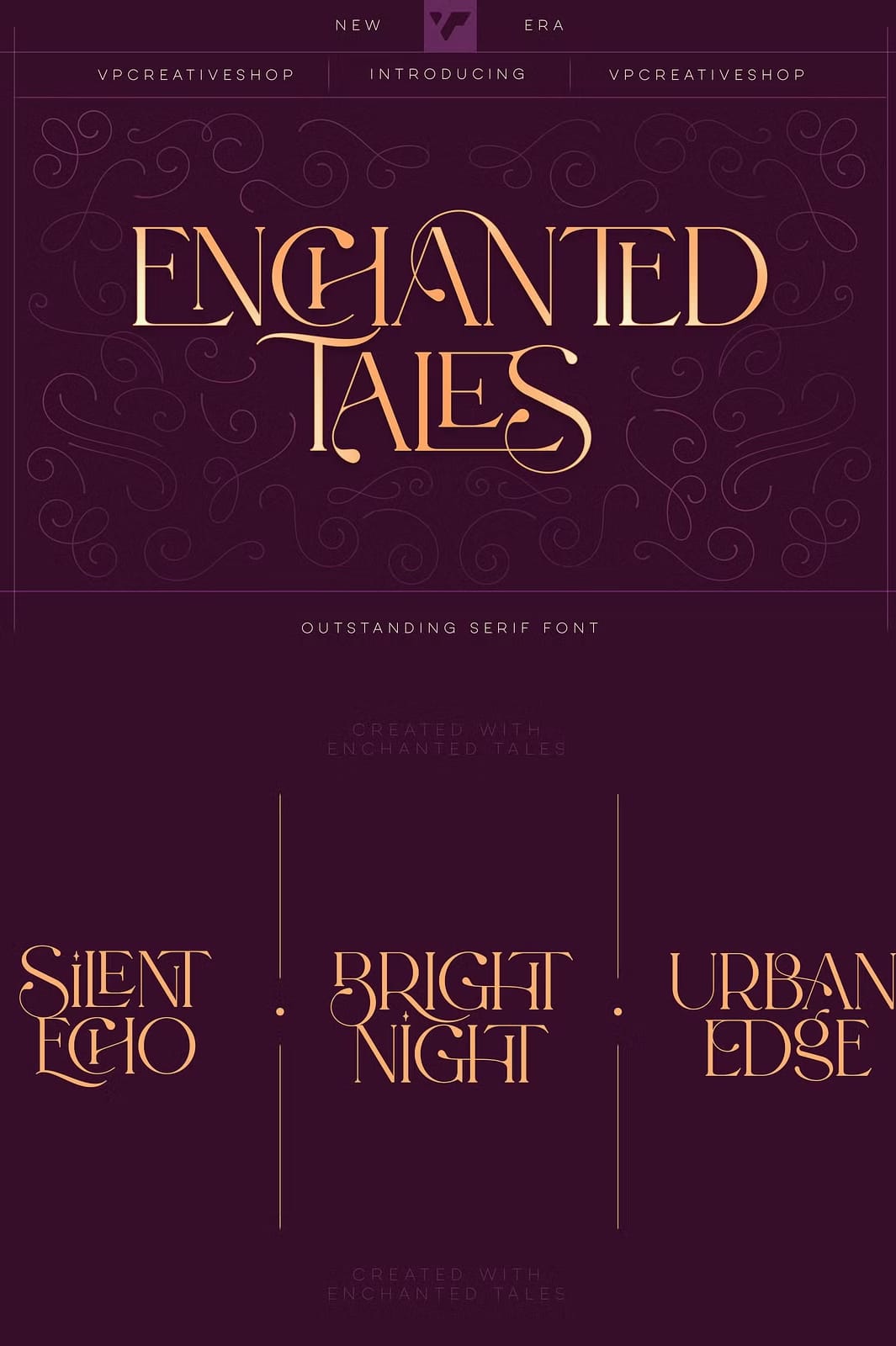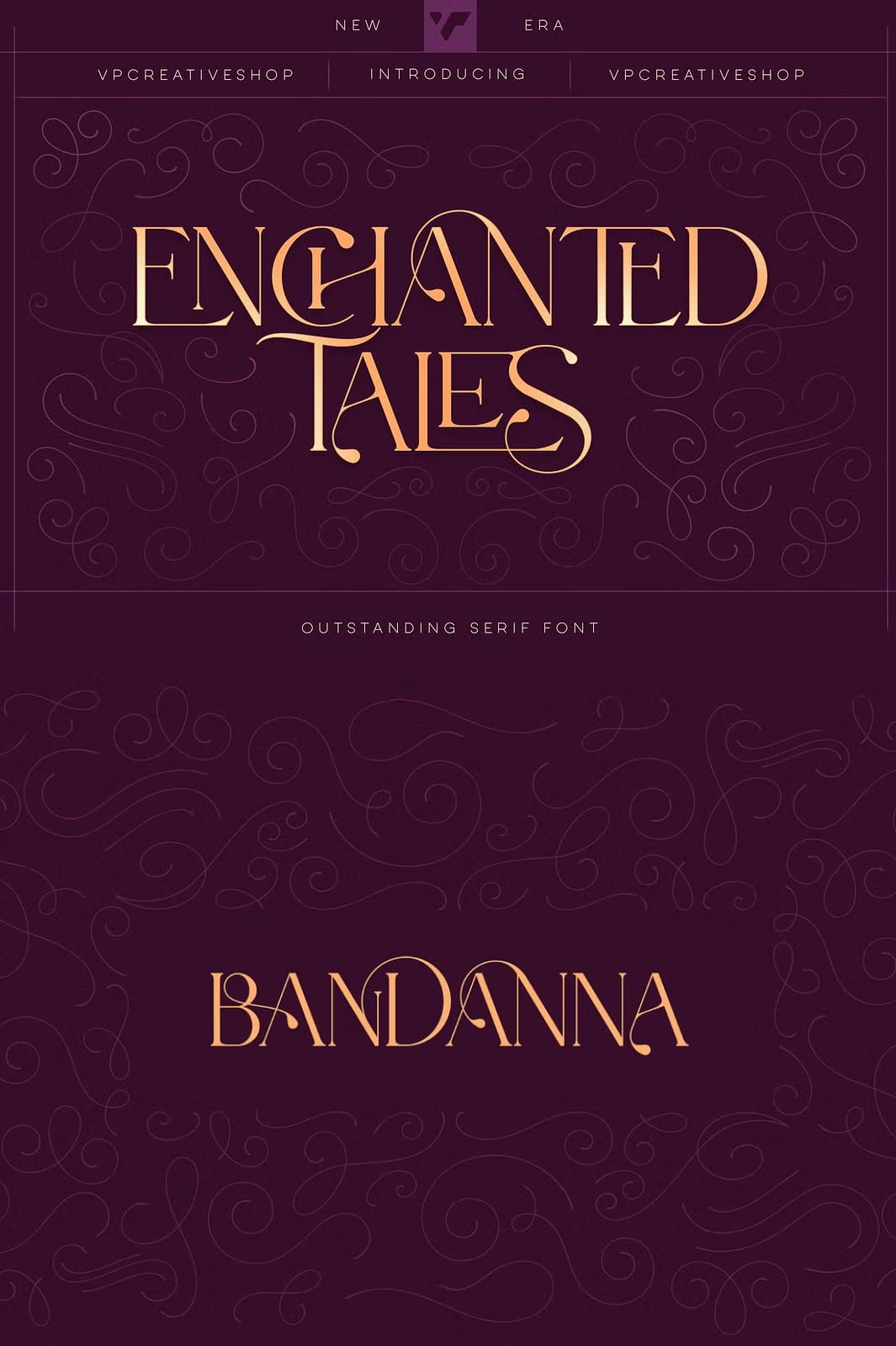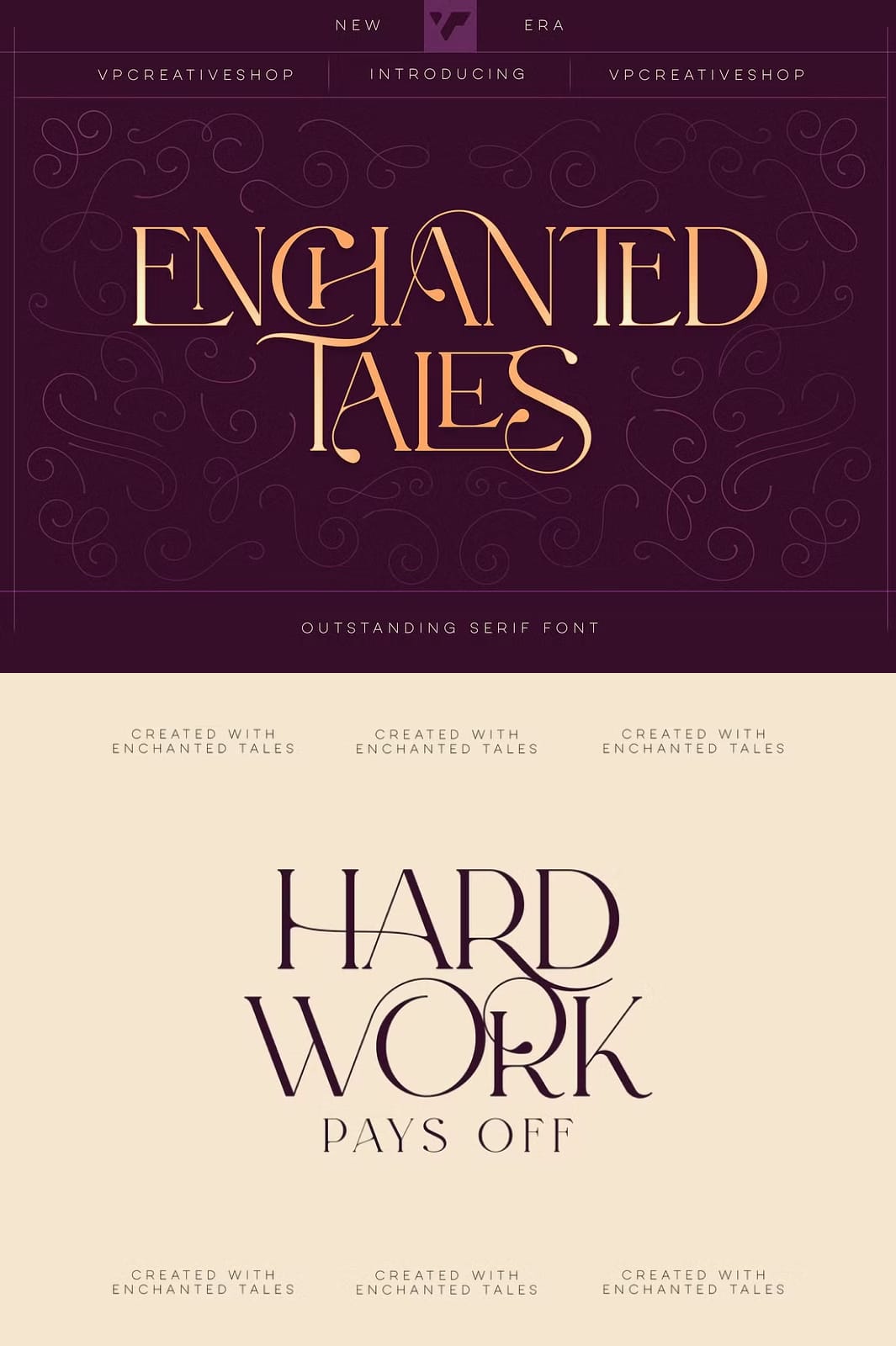
Enchanted Tales – Outstanding Font
Exceptional Features of Enchanted Tales Serif Font
Enchanted Tales offers a unique blend of elegance and versatility, supporting 87 languages and over 150 ligature glyphs. This serif font is perfect for branding, logos, editorial design, and more. Its clean and sophisticated style makes it suitable for both print and digital media.
Comprehensive Language Support for Global Use
This font supports a wide range of languages, making it ideal for international branding and editorial work. Whether you are designing for English, French, Spanish, or many other languages, Enchanted Tales has you covered.
Rich Ligature Set for Enhanced Typography
With over 150 ligatures, this font provides typographic richness and flexibility. These ligatures help create smooth and elegant text flow, enhancing the overall aesthetic of your design.
Perfect for Both Print and Digital Media
Whether you are working on branding, editorial layouts, logos, or web design, Enchanted Tales delivers a professional and timeless look. Its versatility makes it a valuable addition to any designer’s toolkit.